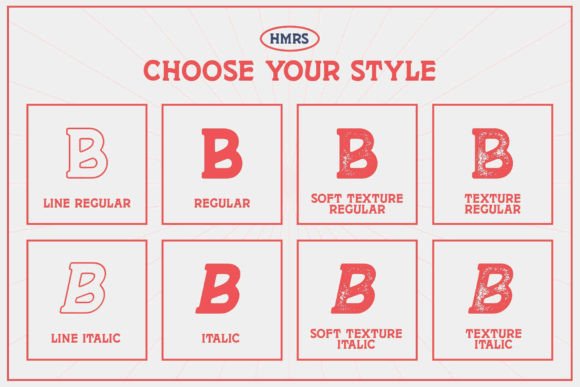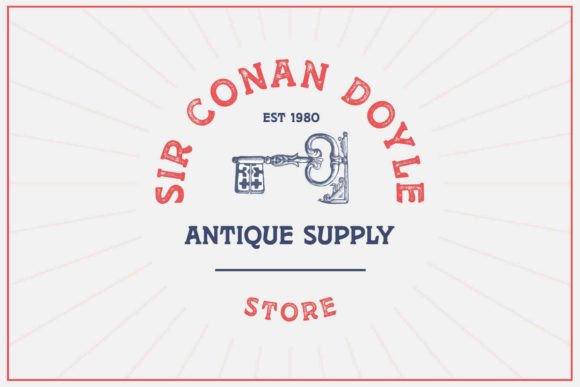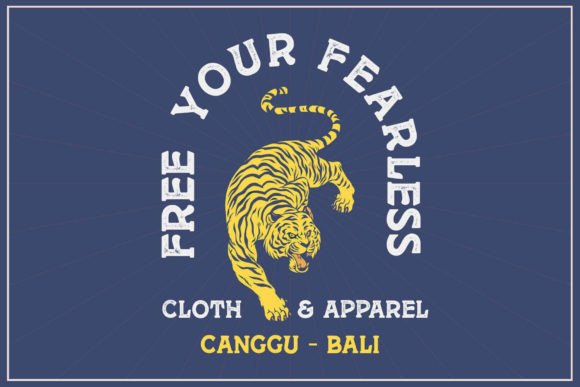
Homerus Font
Elevate your design projects with the timeless charm of Homerus, a meticulously crafted vintage font. This versatile typeface offers a range of styles to suit your creative needs, including Homerus Regular, Italic, Texture, Line, Soft Texture, and their corresponding variations. Each letter exudes a rustic, hand-drawn authenticity that brings a unique character to any project it graces. Whether you’re designing a retro-inspired poster, a quaint label, or a nostalgic branding project, Homerus effortlessly captures the essence of vintage craftsmanship.With Homerus, Koplexs Studio invites you to infuse your creations with a touch of yesteryear’s artistic flair. The font’s wide array of styles ensures compatibility across various design applications, providing you with the freedom to explore and experiment.Homerus is suitable for a wide range of design projects that aim to evoke a vintage, hand-drawn aesthetic. It can be effectively used in various creative endeavors such as: Vintage-Themed Designs: Homerus lends itself beautifully to projects that aim to capture the essence of bygone eras. This could include anything from retro posters, packaging, and labels to vintage-inspired branding materials.Artisanal Crafts and Products: For businesses or individuals involved in crafting handmade or artisanal products, Homerus can add a touch of authenticity and nostalgia to labels, packaging, and promotional materials.Nostalgic Branding: Homerus can be a powerful tool for businesses looking to establish a brand with a vintage, hand-drawn identity. It brings a sense of warmth and personal touch to logos, signage, and promotional materials.Printed Materials: Whether it’s invitations, greeting cards, or event posters, Homerus can be used to infuse a classic, hand-crafted feel into printed materials.Digital Designs with a Vintage Flair: From website headers to social media graphics, Homerus can be employed to give a digital presence a unique, nostalgic twist.Illustrative Elements: The various styles of Homerus, including Texture and Line, make it suitable for creating illustrative elements within a design, providing a consistent hand-drawn look.In summary, Homerus is an incredibly versatile font that adds a timeless and artisanal quality to a wide array of design projects. Its adaptability makes it a valuable tool for designers across various industries and creative pursuits.